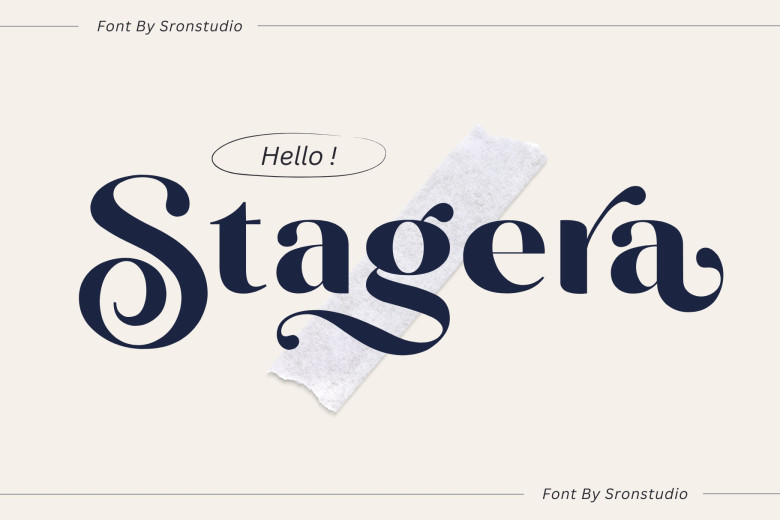
Stagera Font
Stagera is an elegant sans serif typeface that seamlessly combines elegance and versatility. Boasting beautiful letters and captivating alternate characters, Stagera creates a distinct typographical experience that stands apart.
Ideal for editorial design purposes or branding purposes as well as any task which calls for sophistication, Stagera adds an eye-catching radiance that really makes an impactful statement about who you are as an artist or brand.
Stagera Sans Serif Font